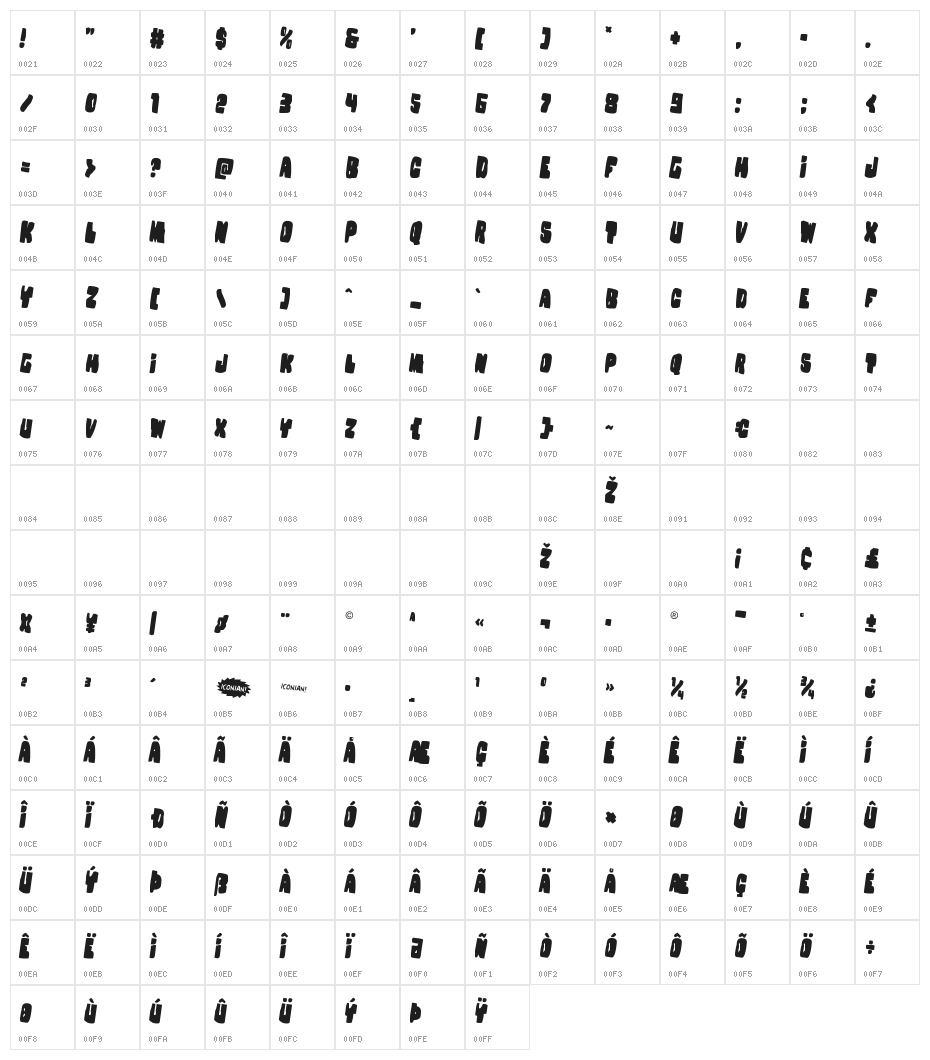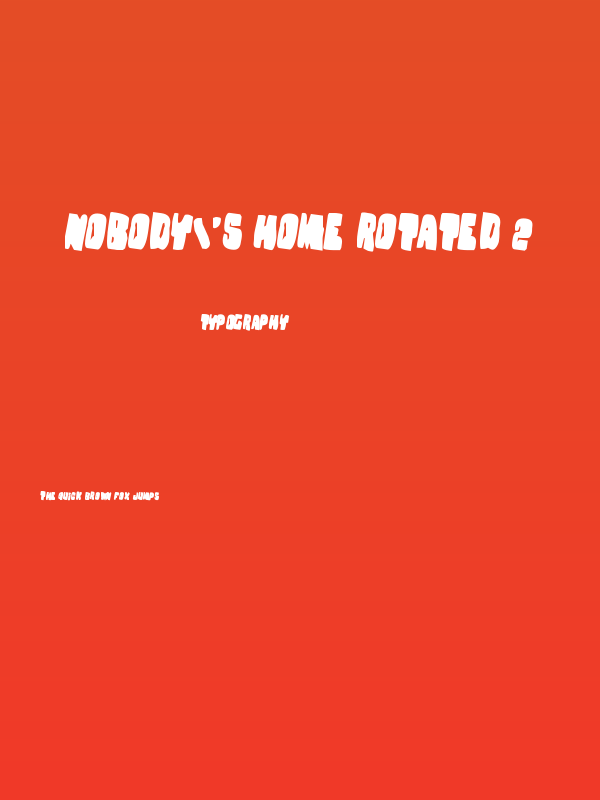
Nobody's Home Rotated 2 Font
Nobody's Home Rotated 2 Description
This font features bold, irregularly shaped characters that convey a sense of playfulness and energy. The letters have a slightly distorted appearance, giving them a unique and eye-catching style. The strokes are thick and uneven, creating a dynamic and lively feel. This font is perfect for projects that require a bold statement or a creative touch. The characters are closely spaced, enhancing the compact and impactful look. The overall style is decorative and modern, making it suitable for various creative applications.
Proposed ProjectsIdeal for posters, album covers, children's books, and creative branding.